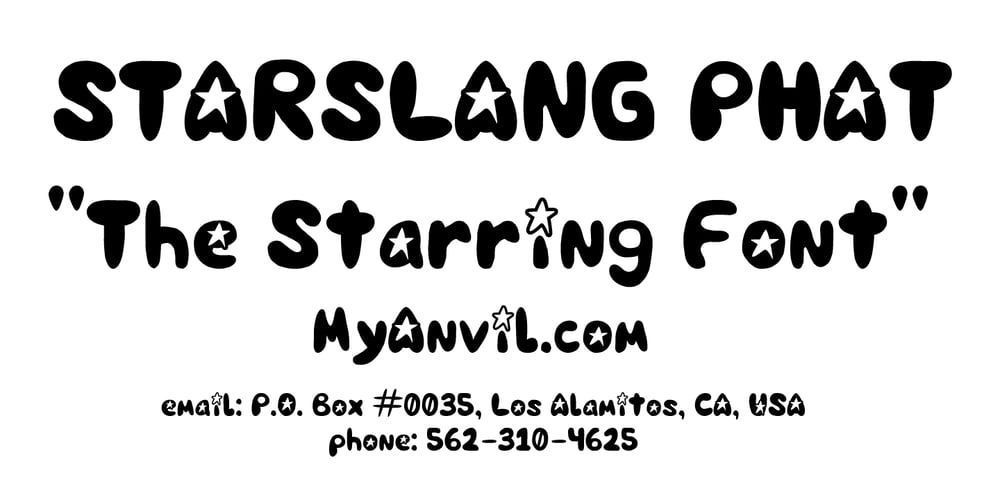
Starslang Phat Font Family was designed by Ted Lau and published by MyAnvil. Starslang Phat contains 1 styles and family package options. This is the “Starslang Phat” font, which is similar to the original “Starslang” font featuring starring vowels. The evolved font design has a heavier weighted text body and rounded contours. The result is a font that has a warm, natural, and curvy feel; with a fun urban impression.